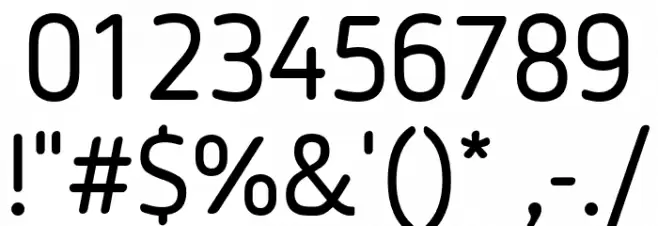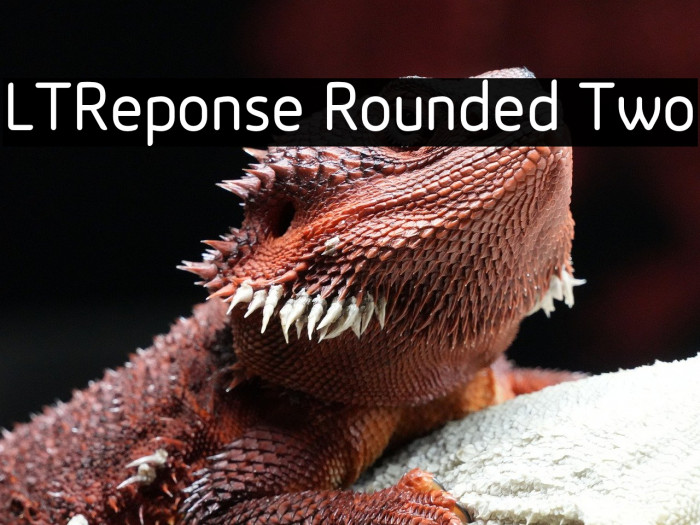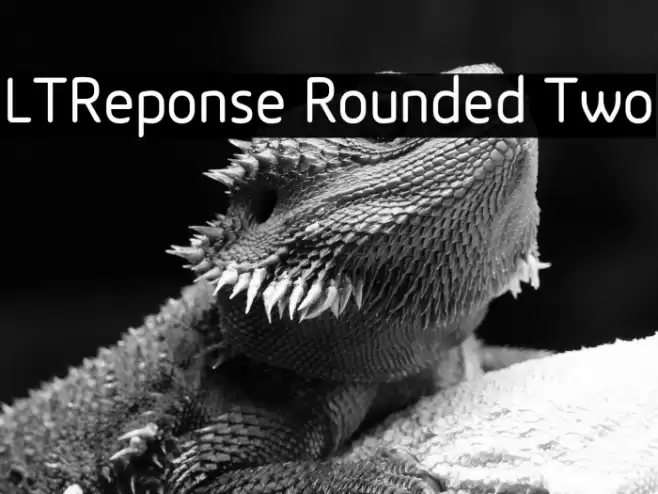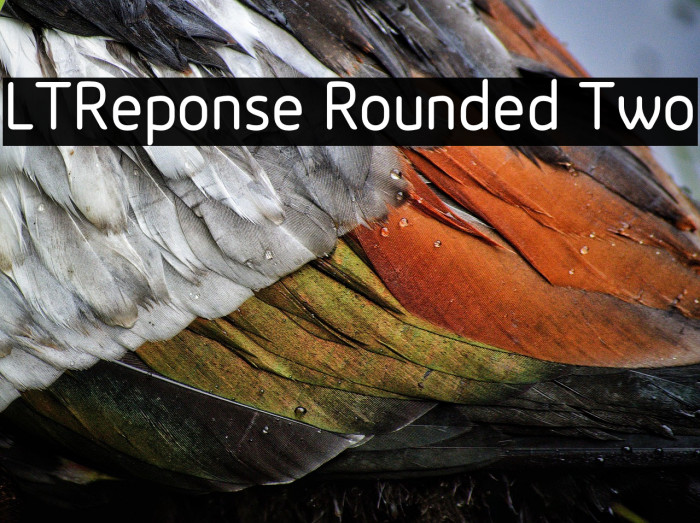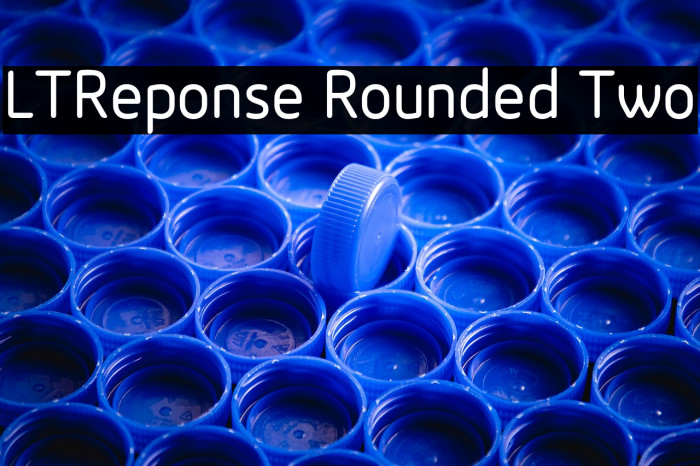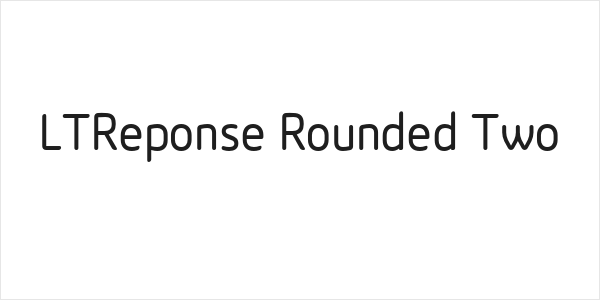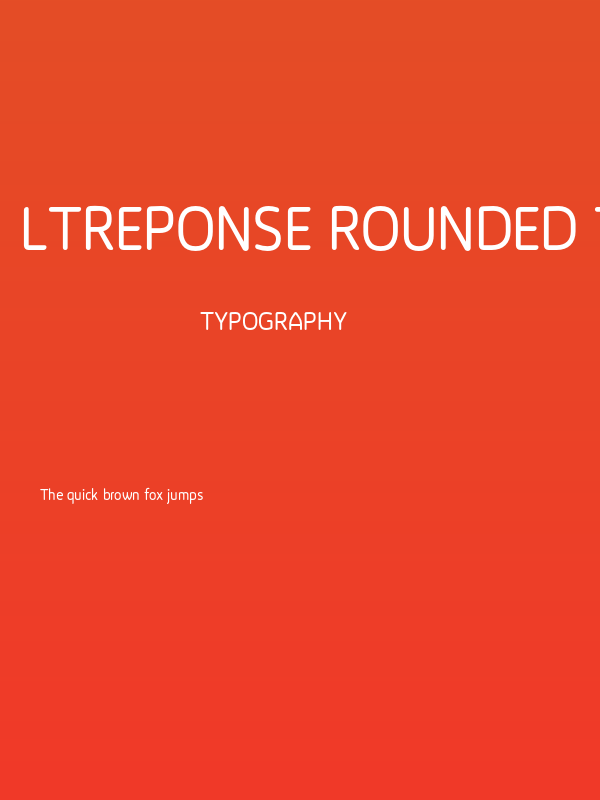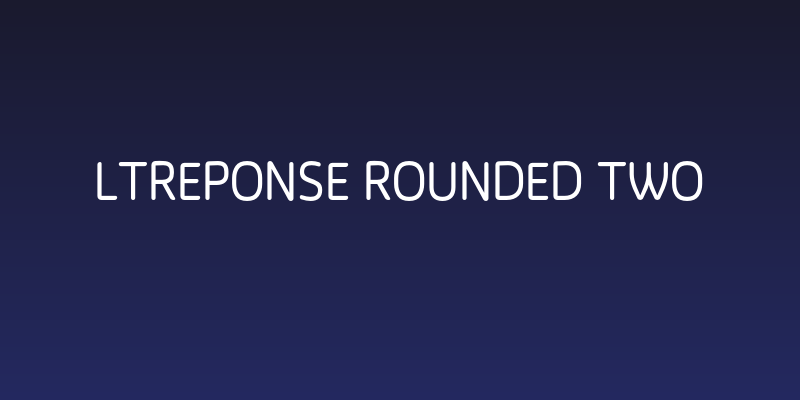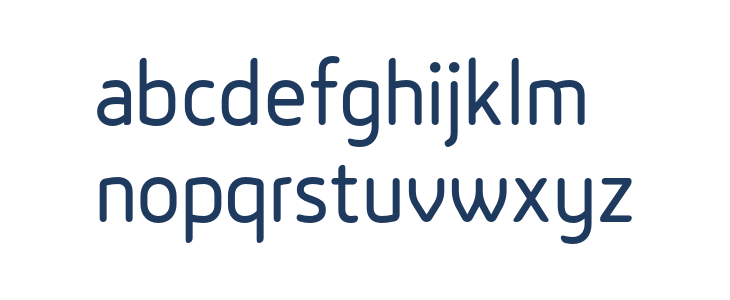
LTReponse Rounded Two Font
LTReponse Rounded Two Description
This font features a clean, modern design with rounded edges that give it a friendly and approachable appearance. The characters are evenly spaced, contributing to its readability. The uniform stroke width across all characters provides a consistent look, making it suitable for various applications. Its simplicity and clarity make it versatile for both digital and print media. The rounded terminals add a touch of softness, balancing the geometric structure with a humanistic feel. This font is ideal for projects that require a contemporary yet warm aesthetic.
| Proposed Projects | Ideal for branding, user interfaces, signage, and educational materials. |